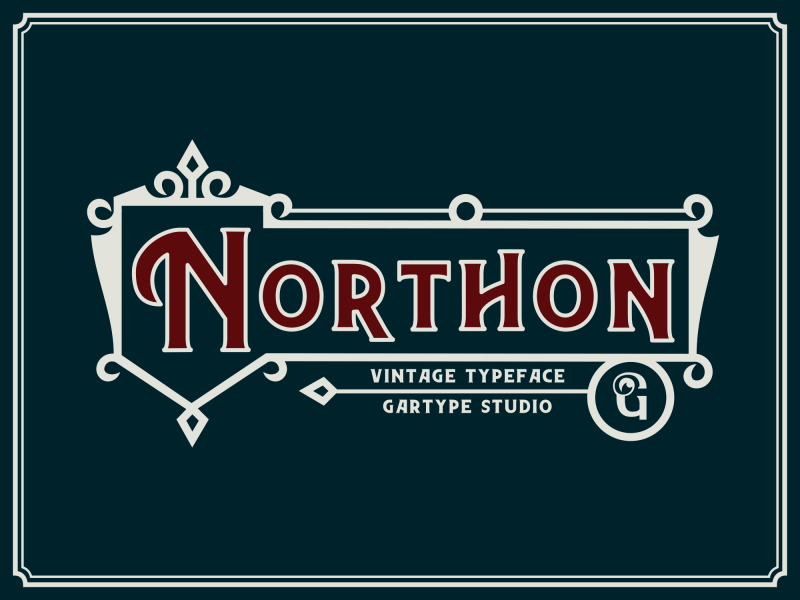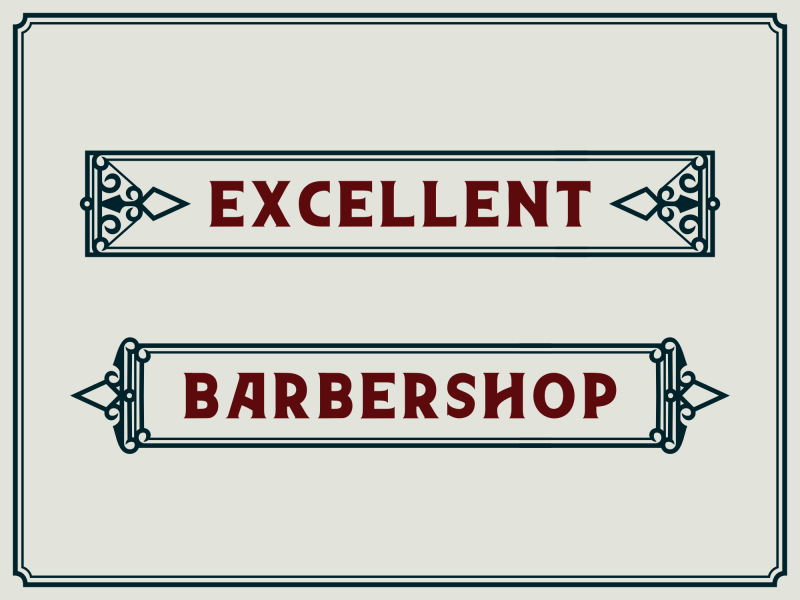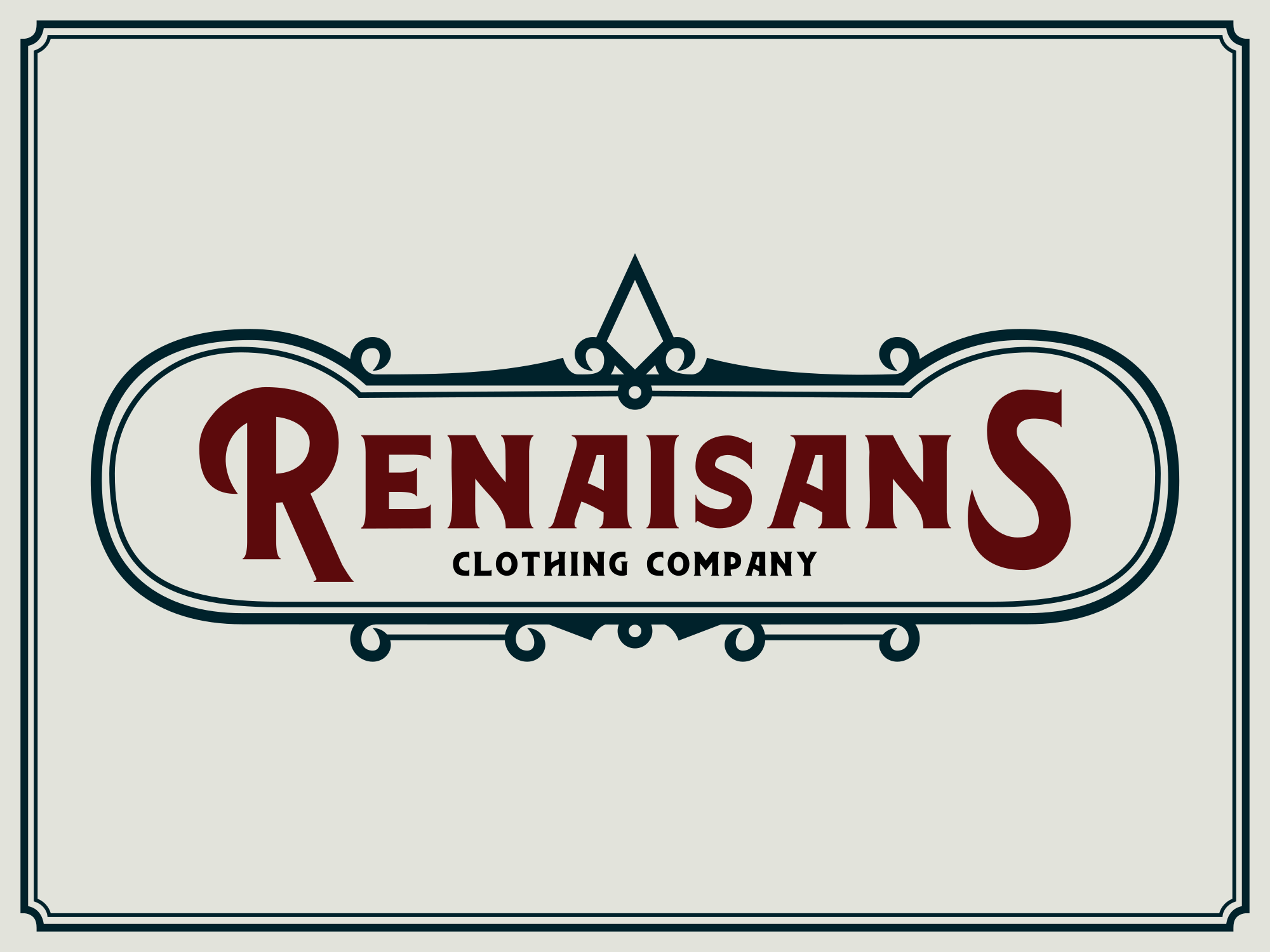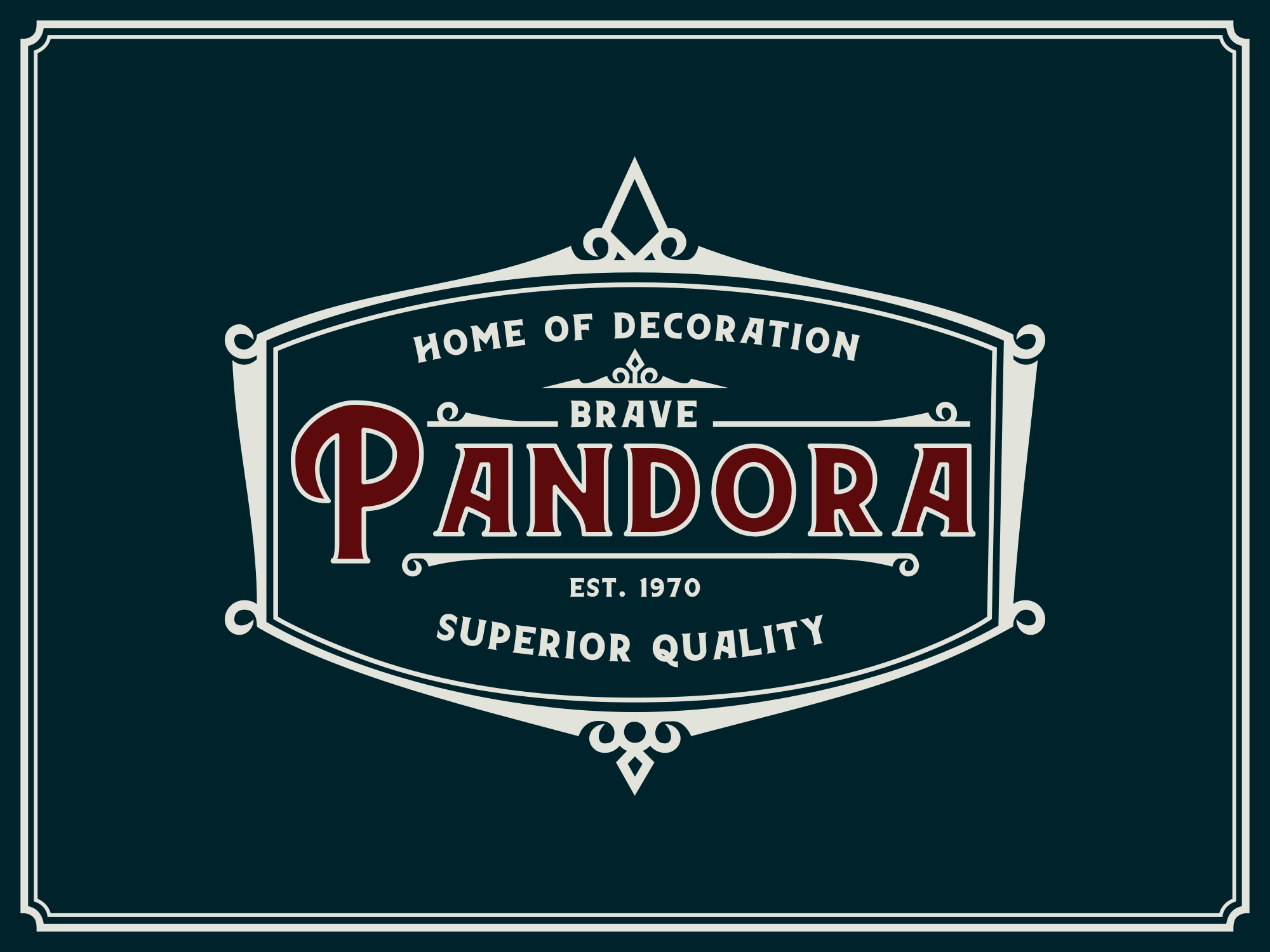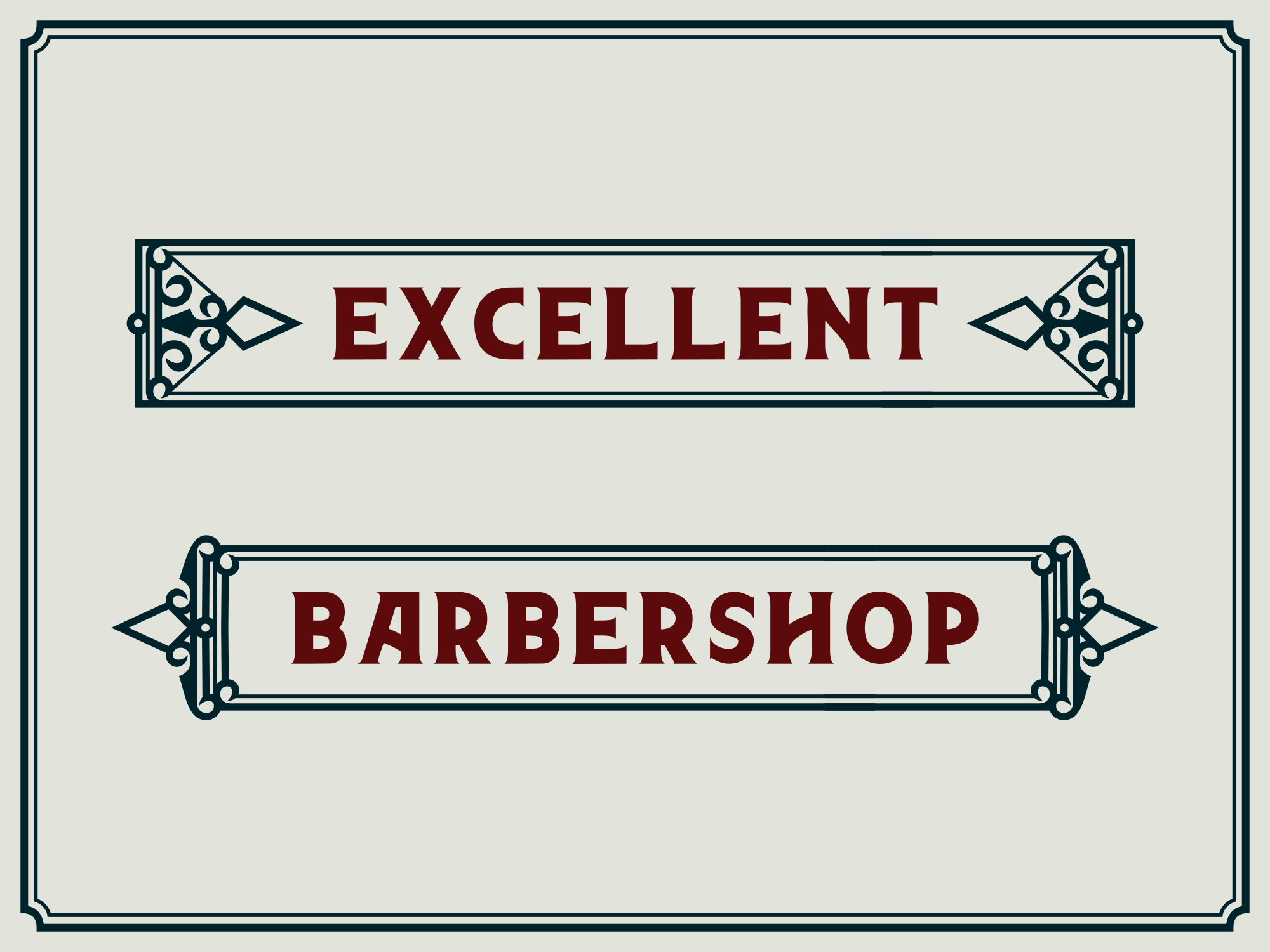
Northon Font and Ornament
Hello buddy ! this time we will introduce to you Northon,a vintage  typeface from us.Northon has 2 types that is northon and Northon Outline font, not only that northon also have many ornaments that will help you finish your great project !